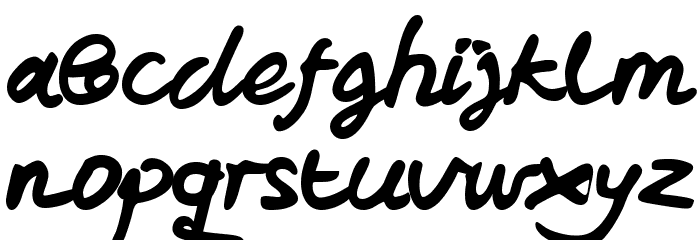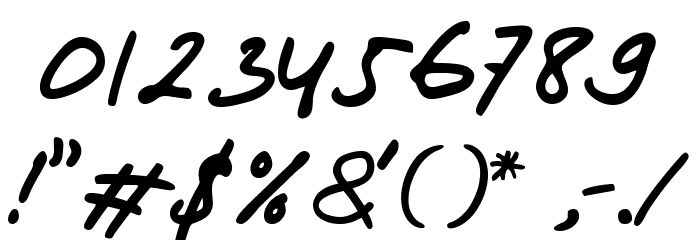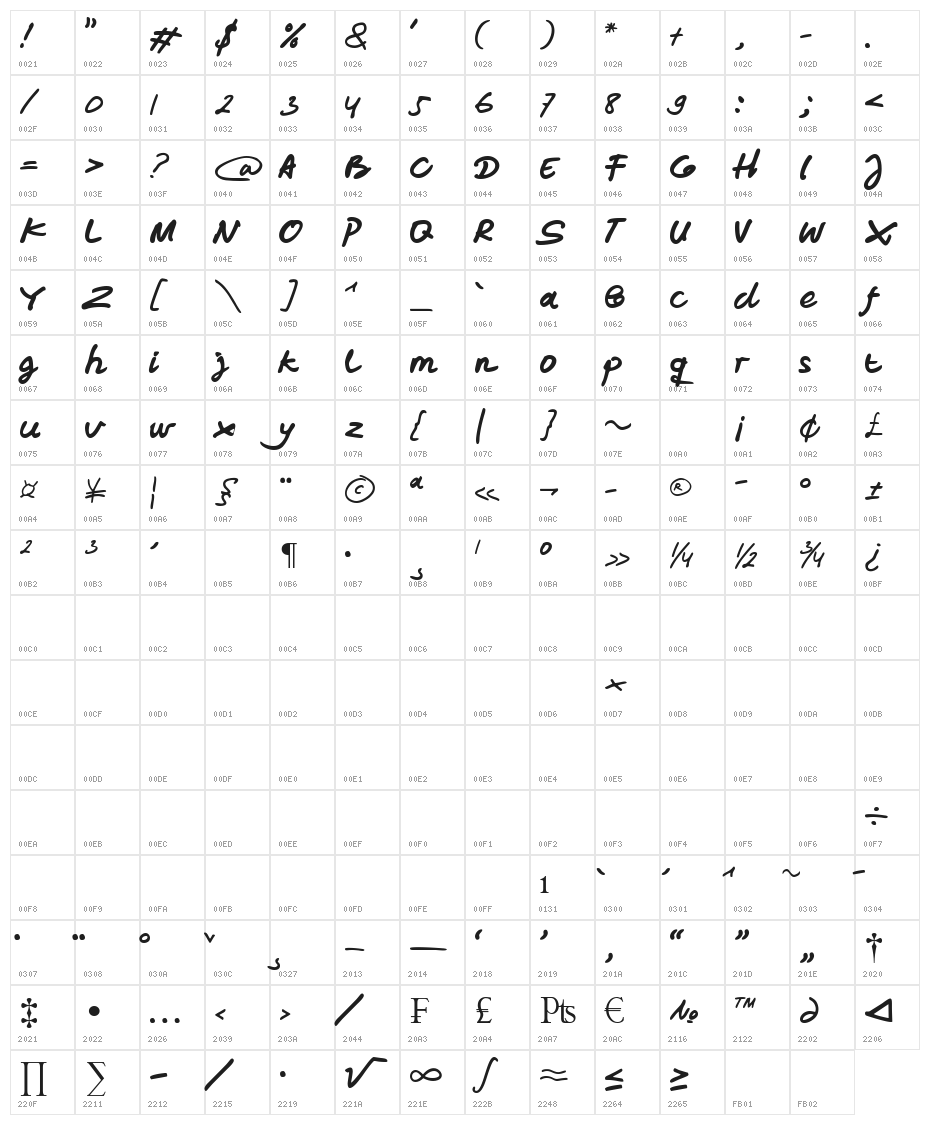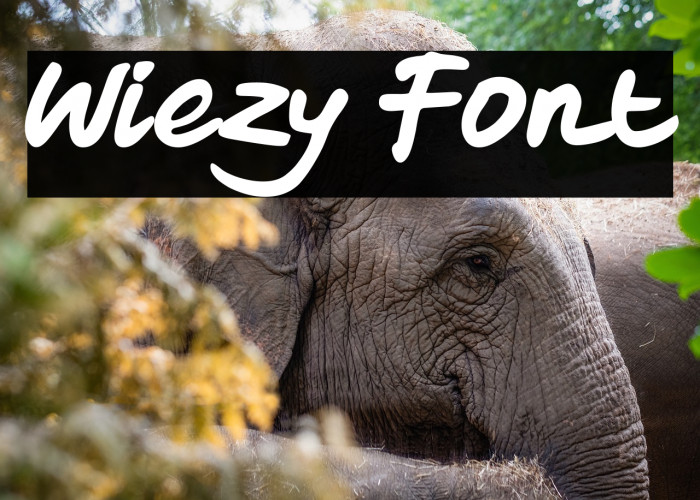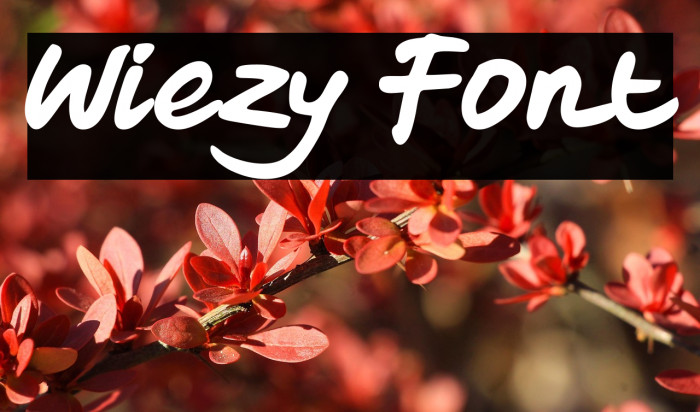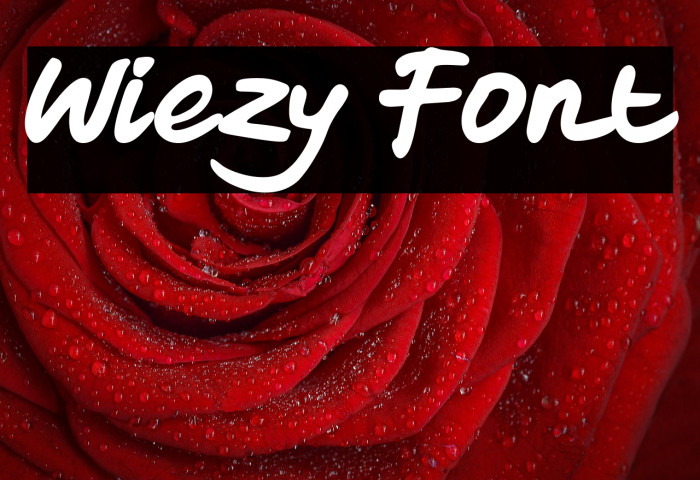
Wiezy Font
This font features a dynamic and energetic script style, characterized by its fluid and connected letterforms. The strokes are bold and expressive, giving it a lively and informal appearance. The uppercase and lowercase letters maintain a consistent flow, with rounded edges and a slight slant, enhancing its handwritten feel. The numerals and special characters are crafted with the same attention to detail, ensuring uniformity across the font. Its playful yet sophisticated design makes it suitable for a variety of creative applications.
A bold, expressive script font with fluid, connected letterforms.
- Proposed Projects: Ideal for branding, invitations, greeting cards, and creative projects that require a personal touch.
- Use Case: Logos, Headlines, Invitations